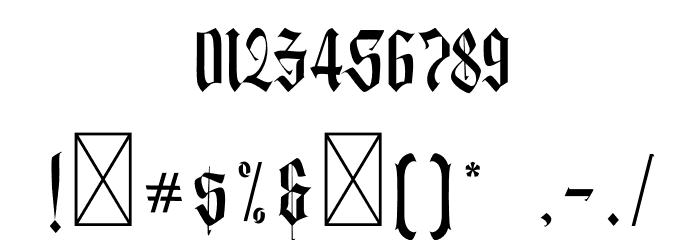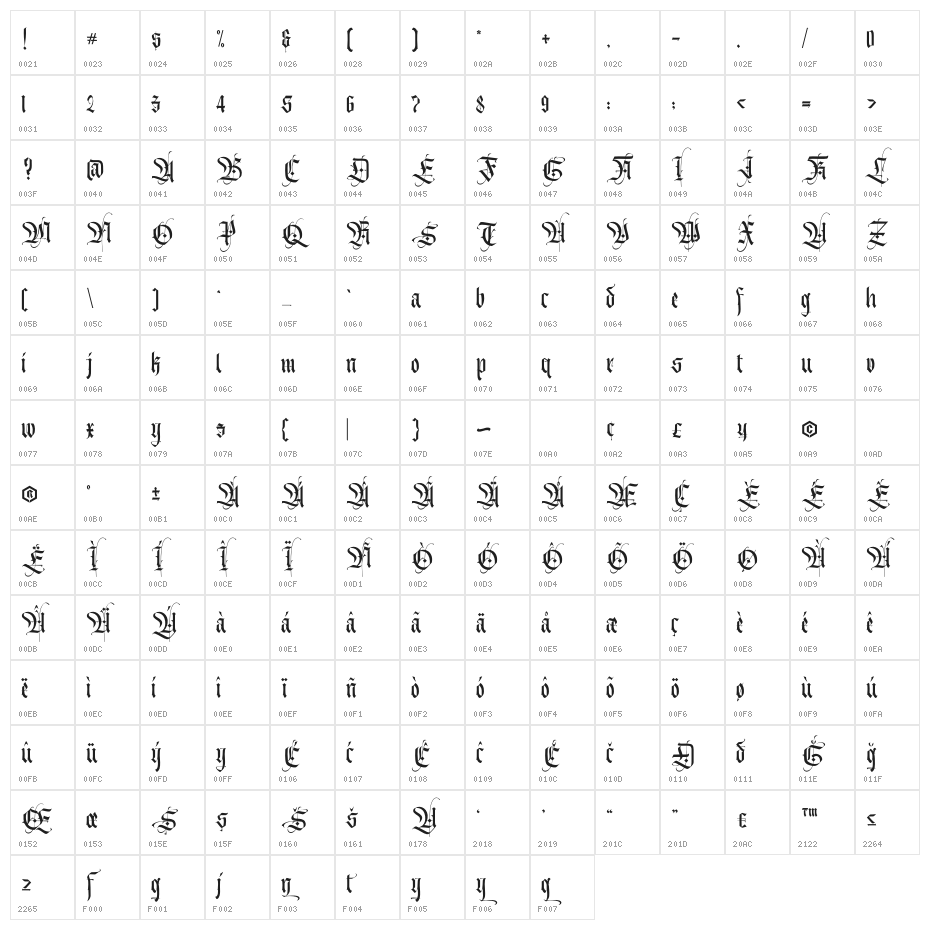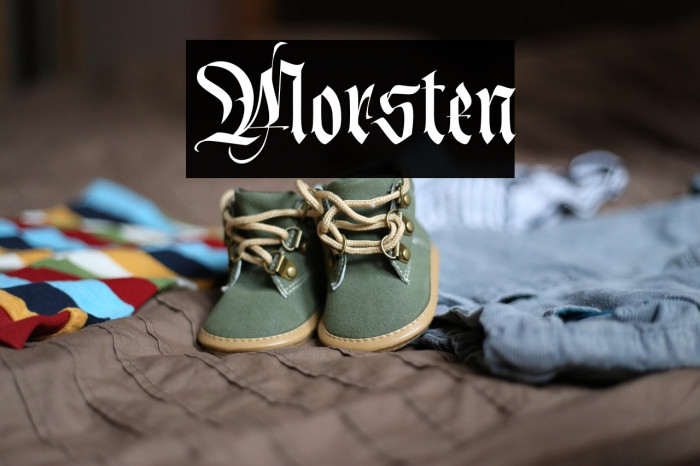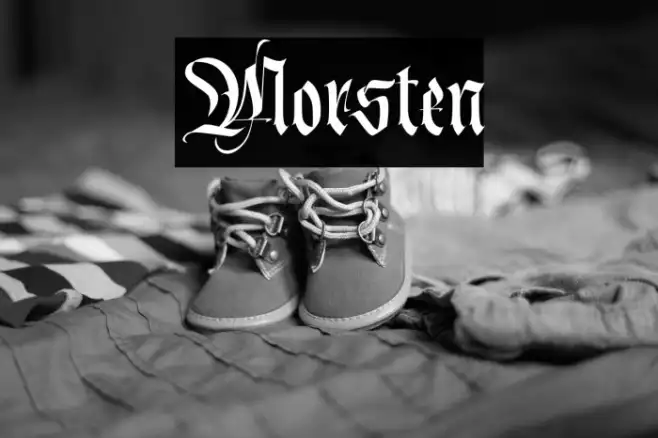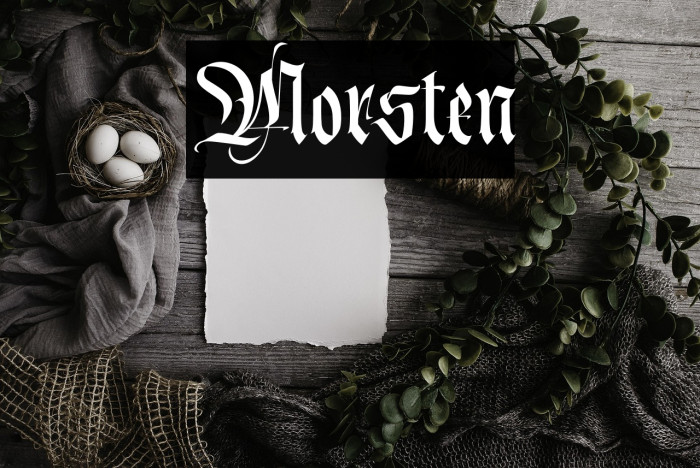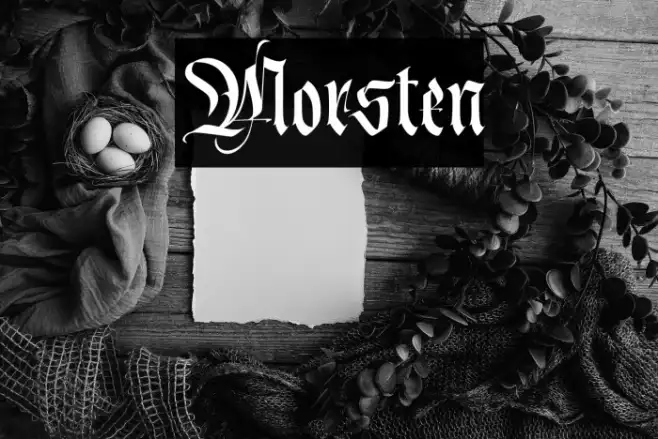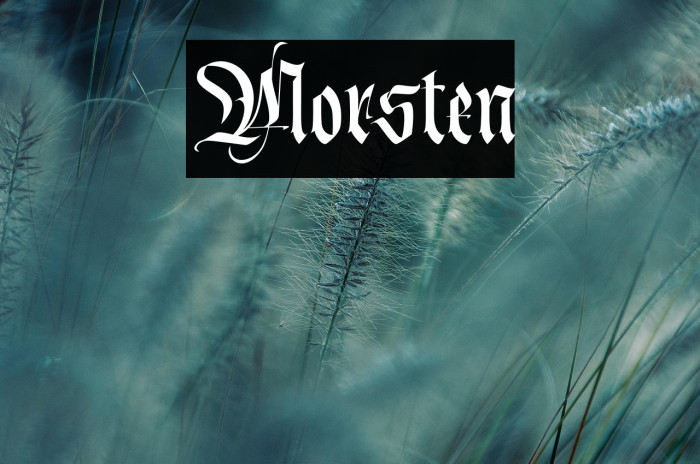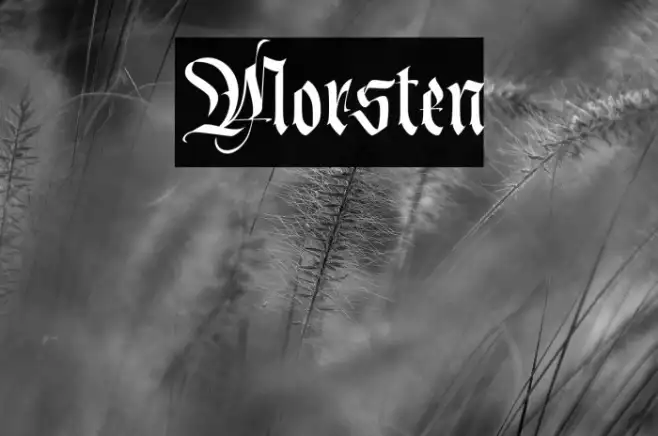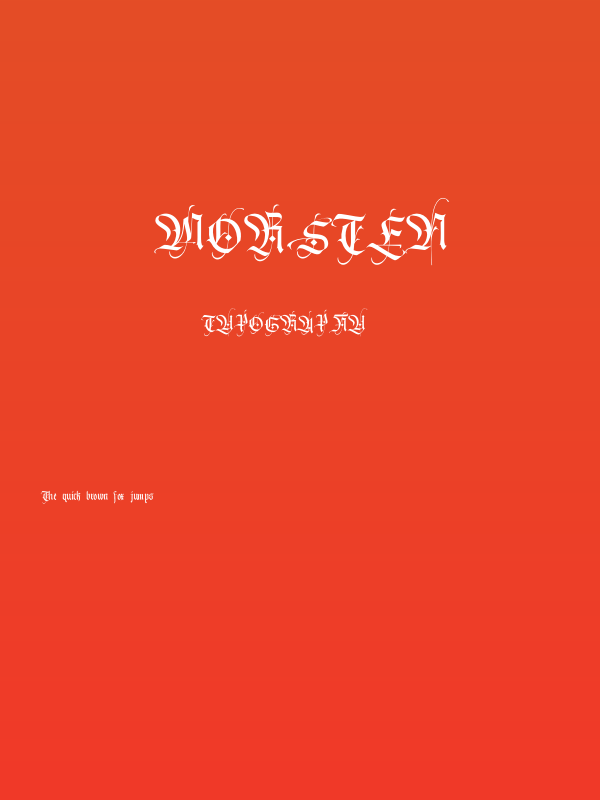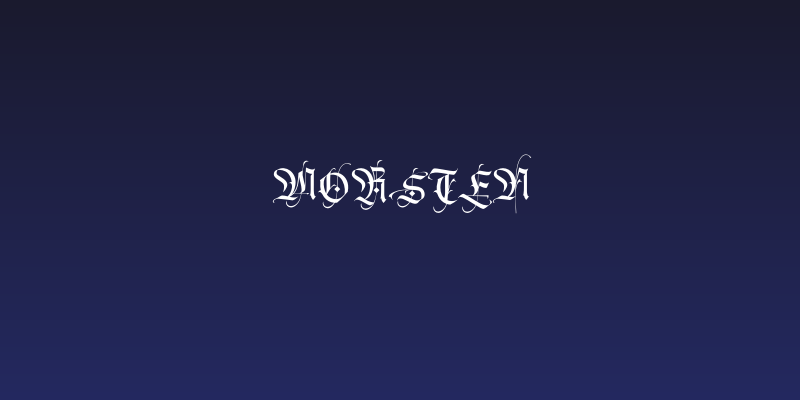
Morsten Font
Morsten Description
This font is a striking example of Blackletter style, characterized by its intricate and ornate letterforms. The uppercase letters feature elaborate flourishes and sharp angles, creating a sense of historical elegance and formality. The lowercase letters maintain the same decorative style, with consistent stroke weight and a slightly condensed appearance. Numbers and special characters are designed to match the overall aesthetic, ensuring a cohesive look across all text. The font's bold strokes and high contrast make it particularly eye-catching, suitable for projects that require a dramatic and traditional touch.
| Proposed Projects | Ideal for historical documents, certificates, wedding invitations, or any project seeking a traditional and dramatic flair. |